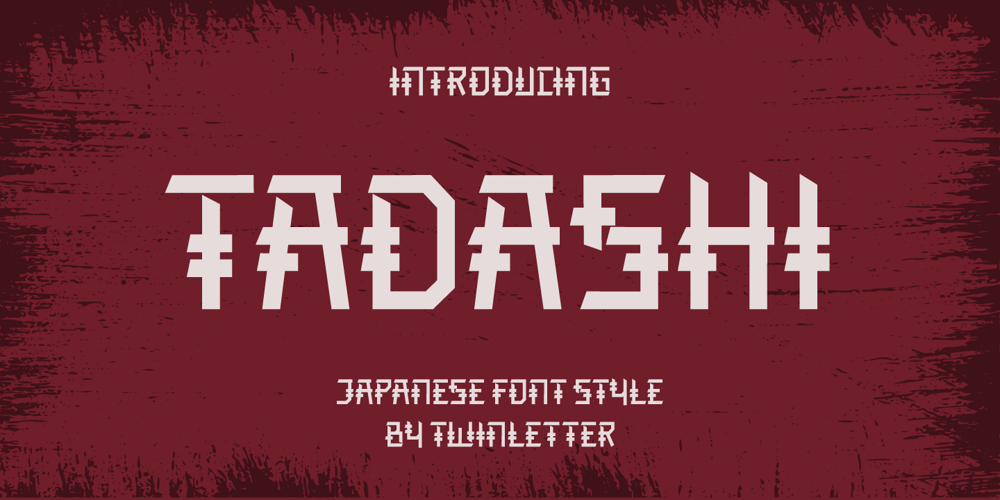
Tadashi Faux Font Family was designed by Rozikan and published by Twinletter. Tadashi Faux contains 1 styles and family package options. TADASHI is our newest display font, which was created with the goal of enhancing the appearance of your project in terms of theme harmony, distinctiveness, and differentiation, in order to produce an appealing and targeted look.This typeface is the solution to everything you’ve been searching for and needing.Logotypes, food banners, branding, brochure, posters, movie titles, book titles, quotes, and more may all benefit from this font.Of course, using this font in your various design projects will make them excellent and outstanding; many viewers are drawn to the striking and unusual graphic display.Start utilizing this typeface in your projects to make them stand out.